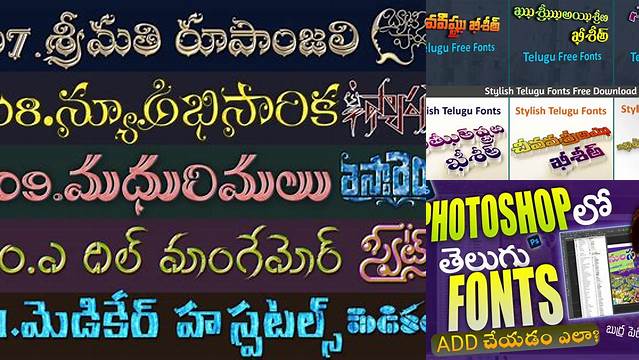
Download Free Telugu Fonts For Photoshop 7.0
Hey guys! Are you looking to add some amazing Telugu fonts to your Adobe Photoshop 7.0? Well, you're in the right place! This article will guide you on how to find and download Telugu fonts for free, so you can create stunning designs. Let's dive in!
Why Use Telugu Fonts in Photoshop?
Using Telugu fonts in your Photoshop projects can add a unique cultural touch and make your designs stand out. Whether you're creating posters, social media graphics, or any other visual content, having the right font is crucial.
- Cultural Relevance: Telugu fonts allow you to connect with a specific audience, making your message more relatable and impactful.
- Unique Designs: Incorporating Telugu script can give your designs a distinctive and artistic flair, setting them apart from the typical English-based designs.
- Versatility: With a variety of Telugu fonts available, you can find the perfect style to match the tone and theme of your project.